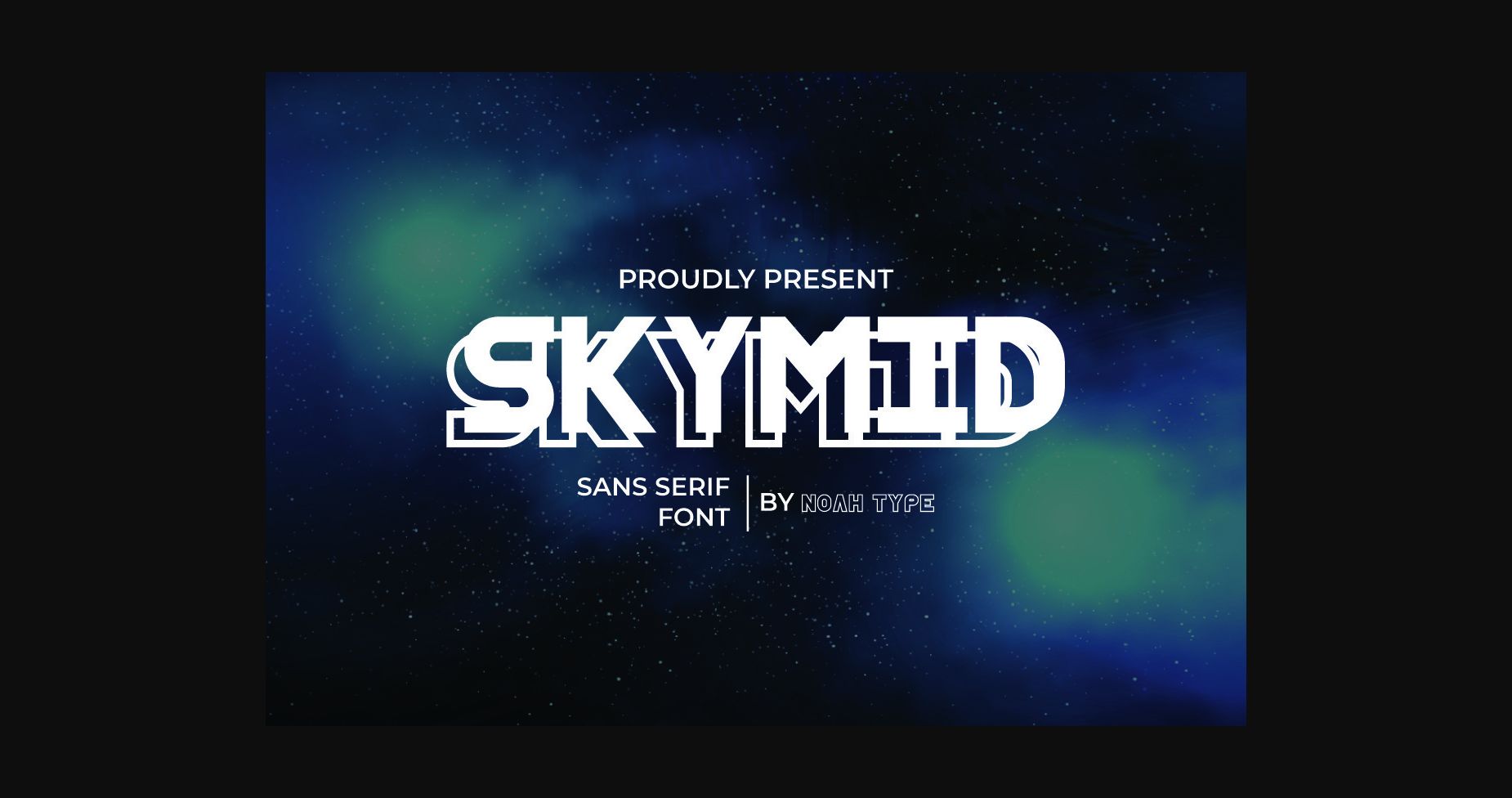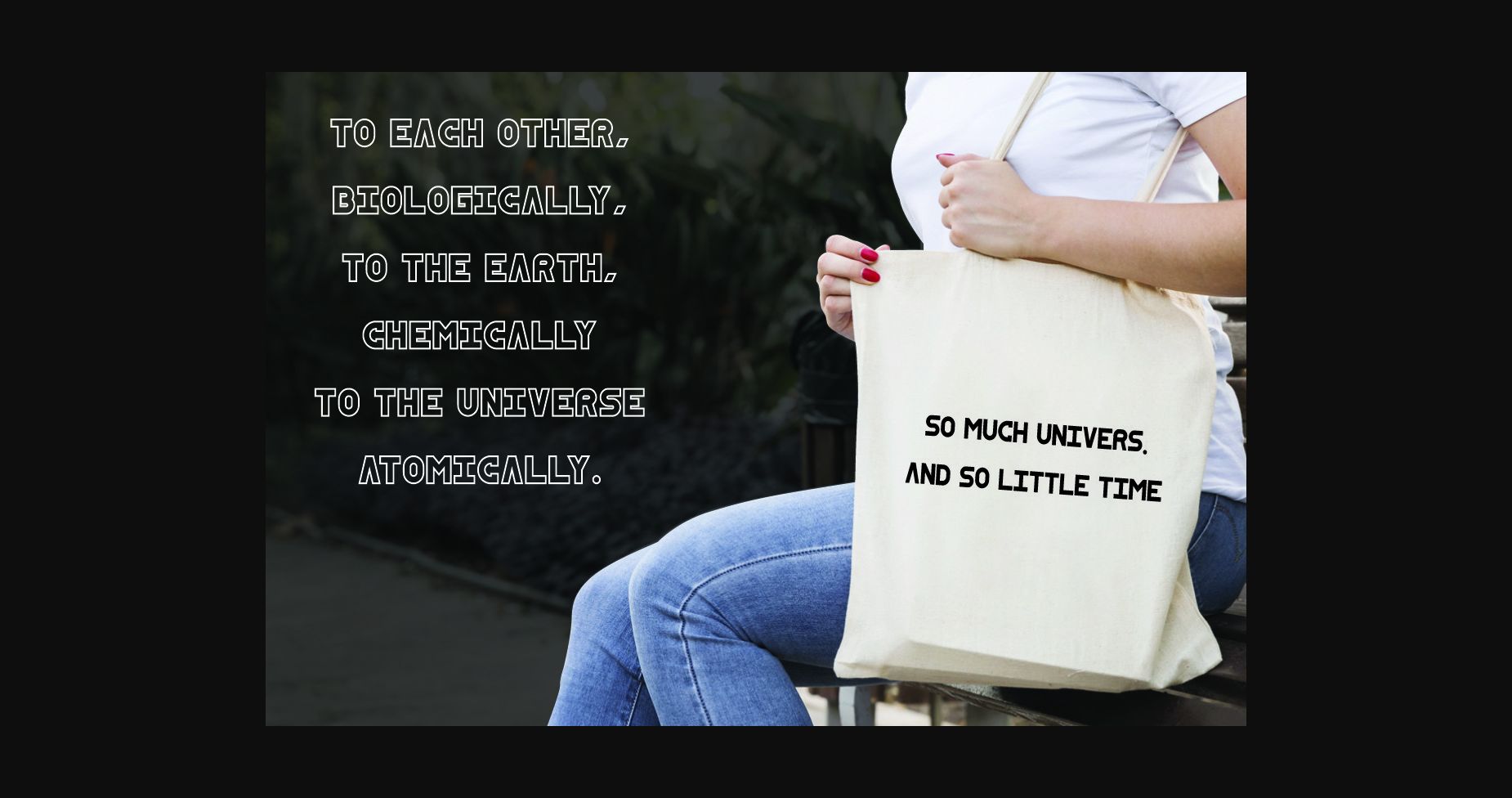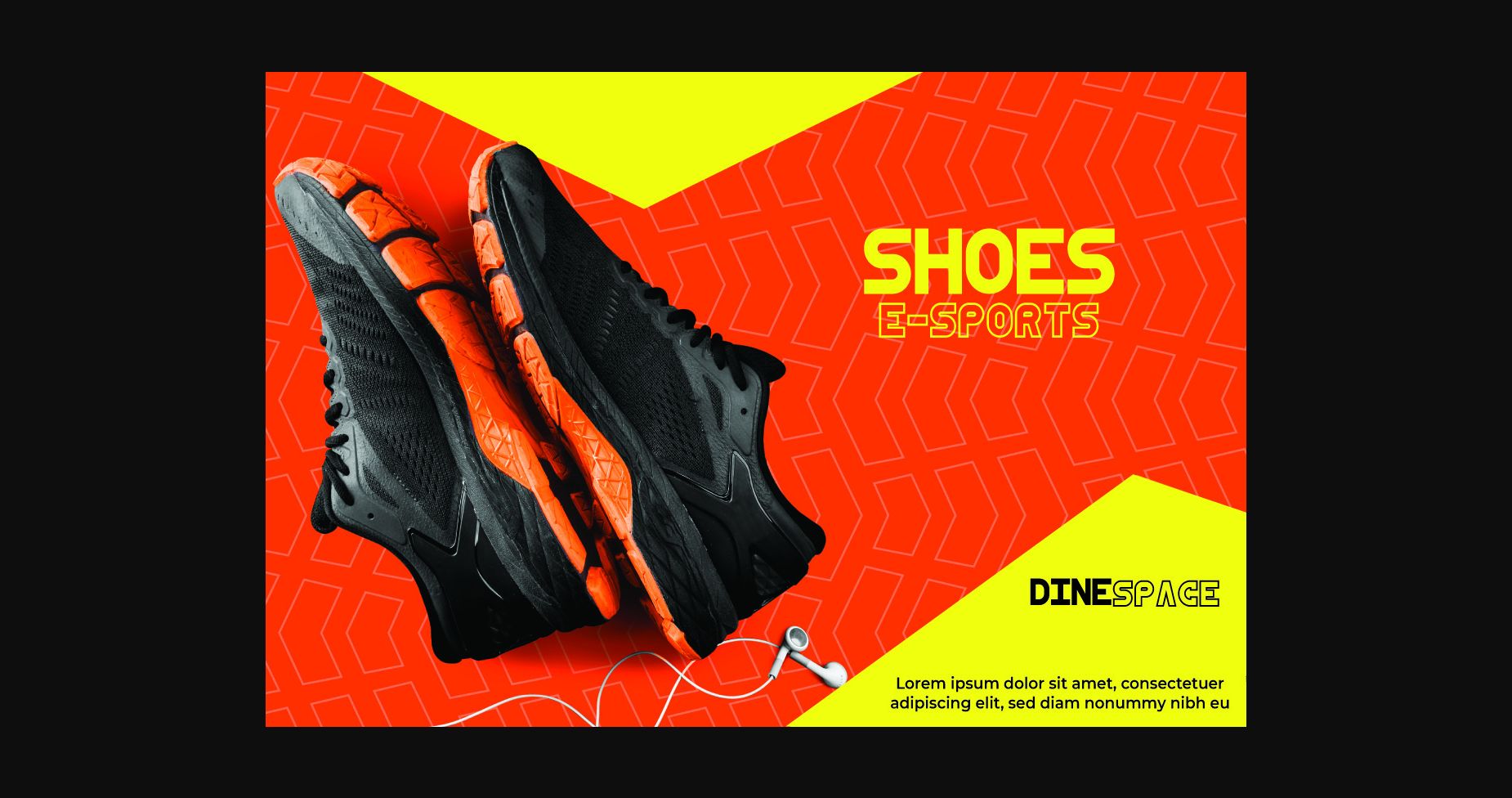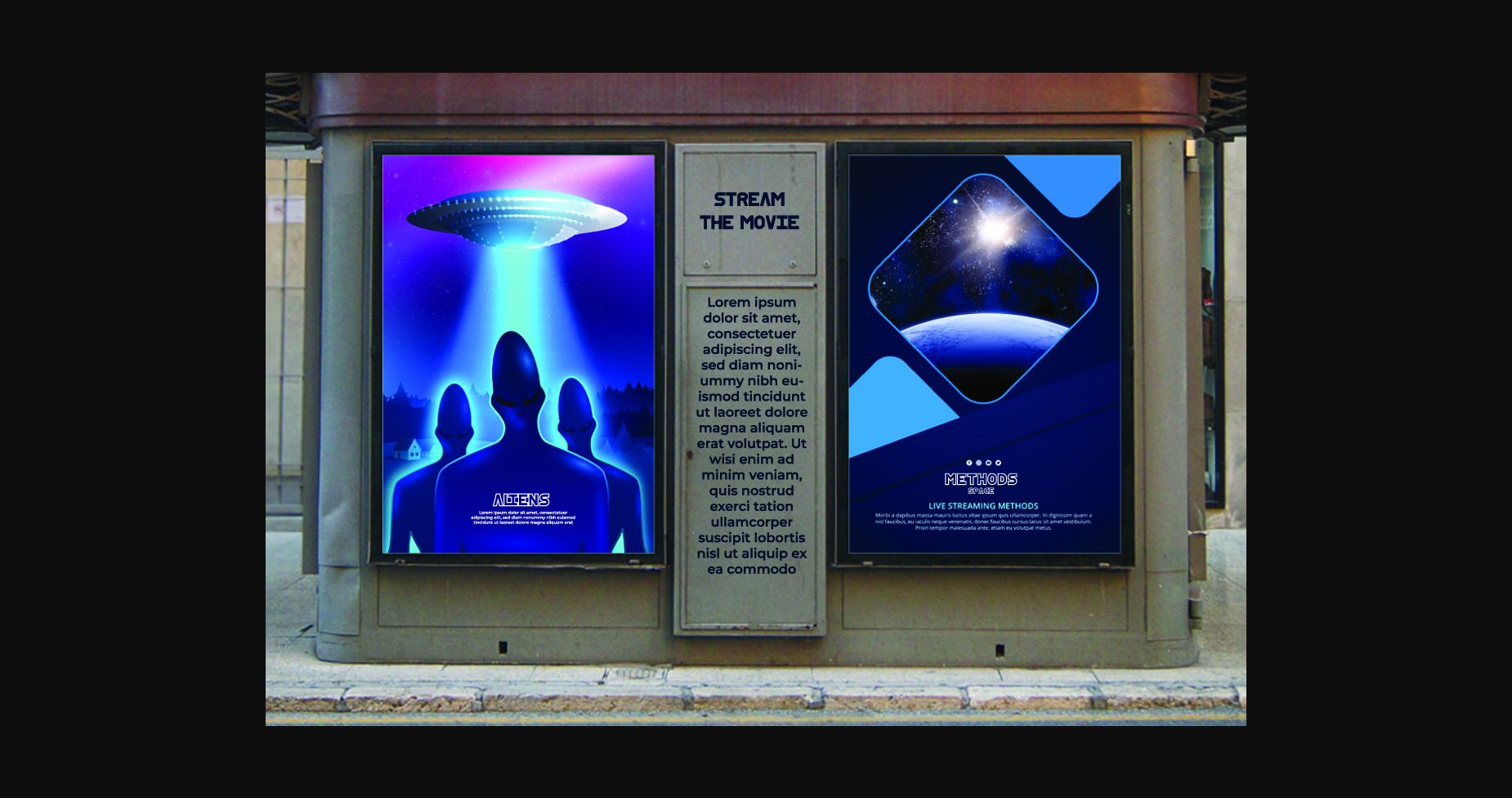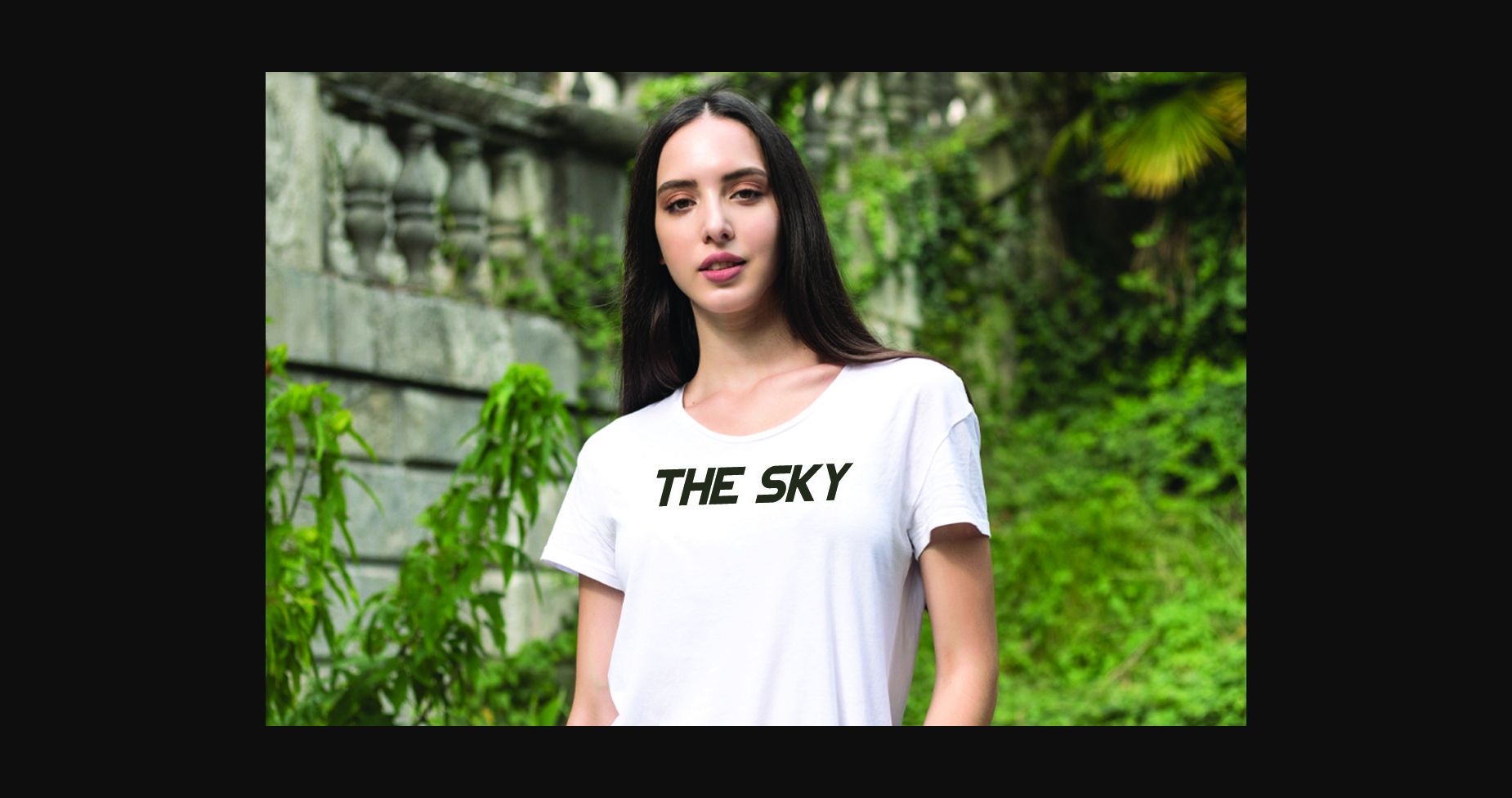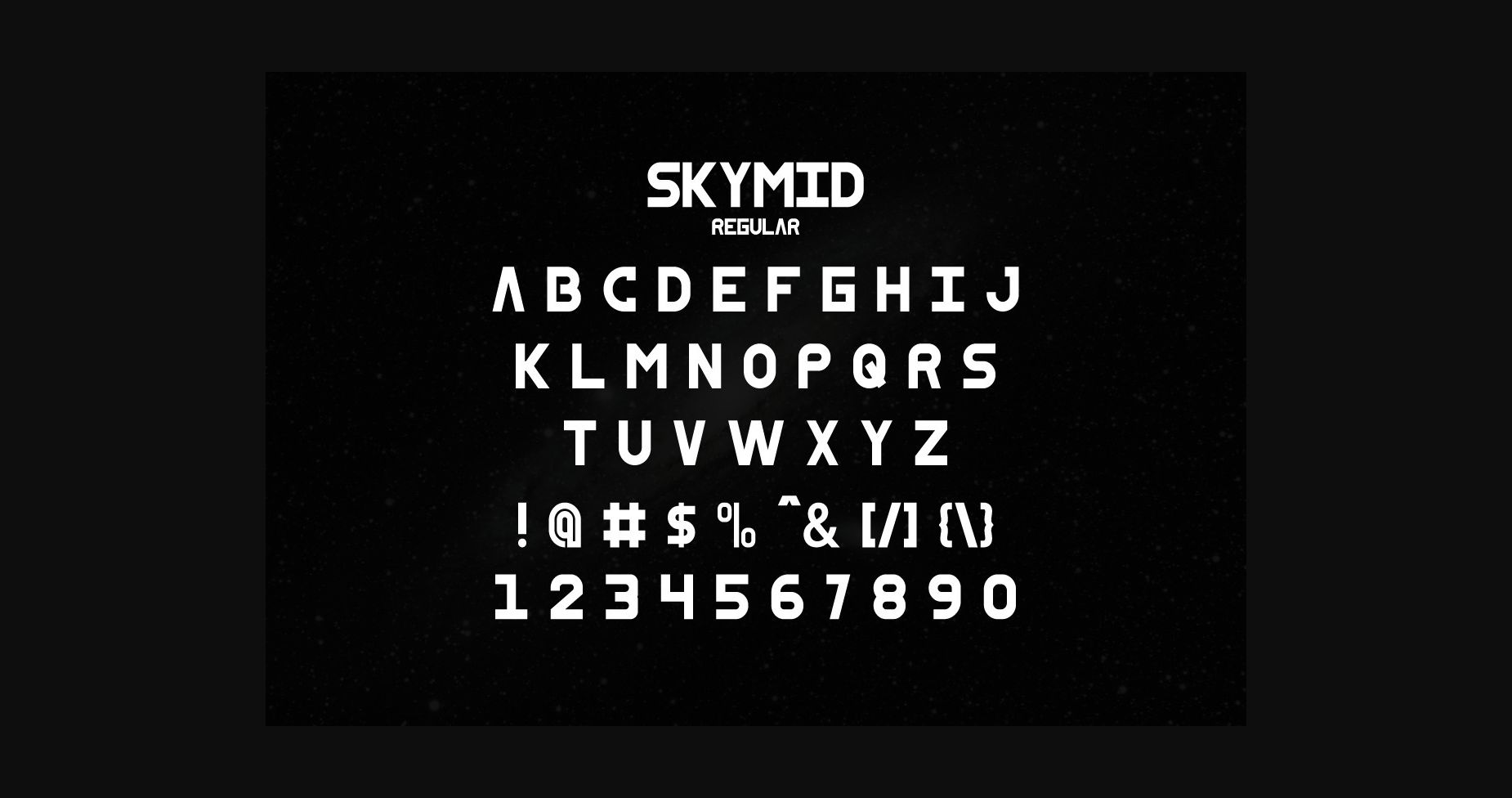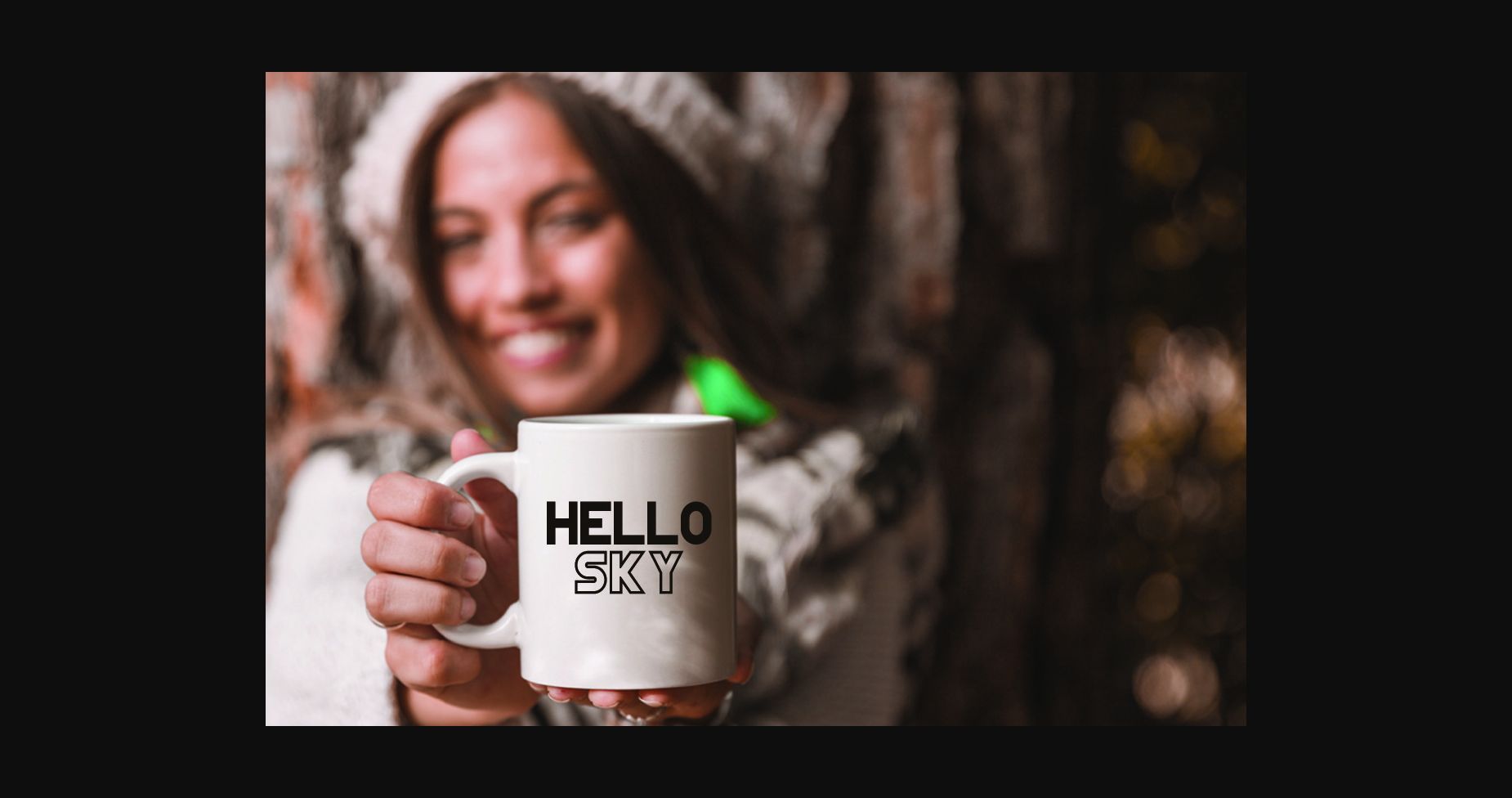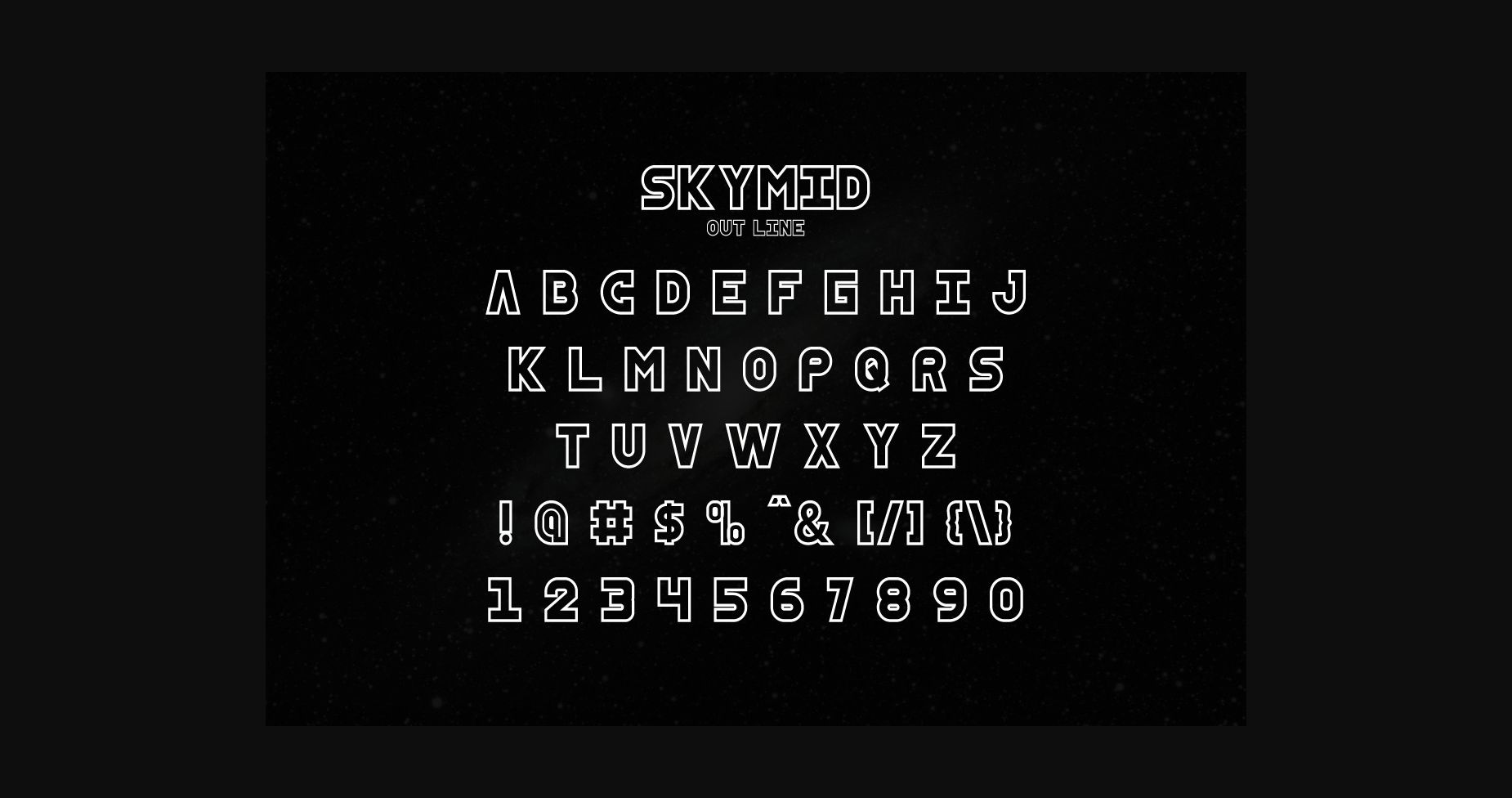
SkyMid Font
About SkyMid Font
SkyMid is a modern sans serif font with a cool style and bold characters. It has a unique style that will bring a special effect to your designs. This font works great for games, technology, events, headlines, logos, posters, titles, products, etc.